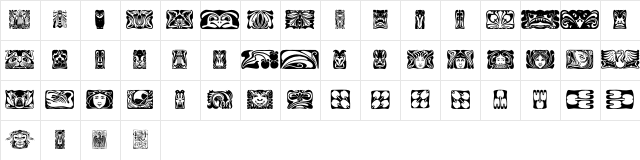
Jugendstil Ornamente Regular Free Font
Jugendstil Ornamente Regular
Designer: Dieter Steffmann
Design Context for Jugendstil Ornamente
Jugendstil Ornamente is built around its visual character rather than neutral utility - its distinctive forms are designed to make an impression at display sizes.
Font Pairing: Pair with a clean neutral sans-serif for body copy to let Jugendstil Ornamente's character lead without overwhelming the composition.
Pro Tip: Use Jugendstil Ornamente exclusively at display sizes - it was designed to be seen, not read at length. Let a neutral companion handle body copy.